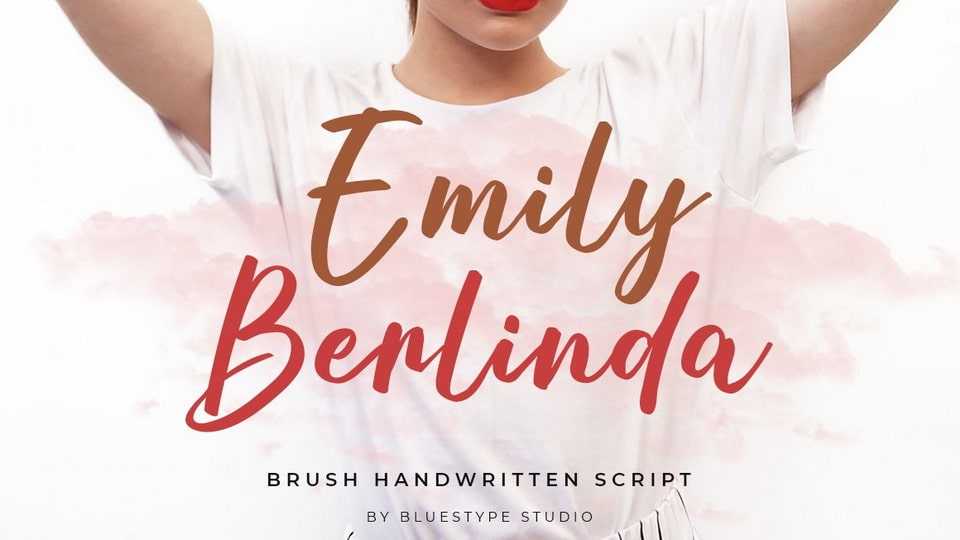
Download Emily Berlinda font, a cool and casual handwritten script typeface. Emily Berlinda font is suitable for designs such as t-shirts, sportswear, logos, advertisements, clothing, and more.